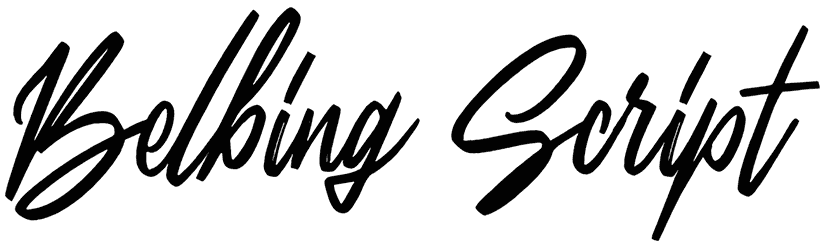
Belbing Script Font
The Belbing Script font stands out in terms of being unique, but it increases its illegibility due to its chaotic lines. This handwritten font can be a great choice in many street designs, designs on t-shirts, and even many formal classes.
In this case, you’ll find a brush font that will make your lettering look sophisticated, and at the same time, you’ll be able to add a touch of personalization.